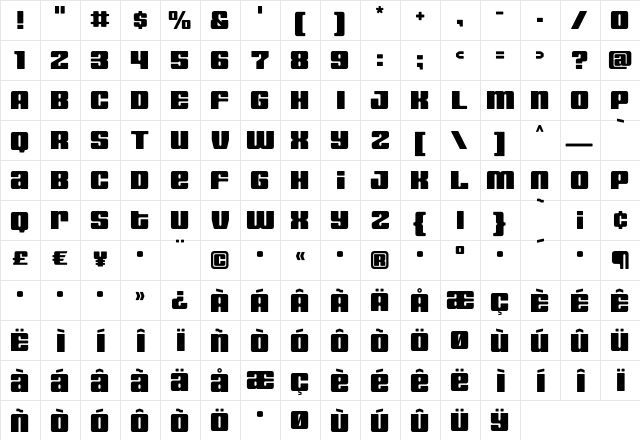
HOUSE3009 Spaceage-Black-Alpha
Design Context for HOUSE3009 Typeface
HOUSE3009 is a composed and adaptable typeface that performs quietly and consistently across a wide range of design contexts.